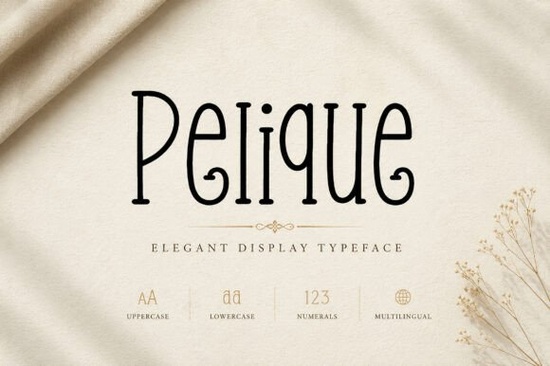
If you're looking for a font that can add a touch of elegance and sophistication to your design projects, Pelique Font is a great choice. This display font features playful curves and elegant proportions, making it ideal for luxury branding, editorial design, packaging, and more.
Why Choose Pelique Font?
Pelique is designed to bring sophistication, charm, and personality to your creative projects. Its tall, graceful letterforms and playful organic curves blend modern refinement with timeless editorial aesthetics. Whether you're working on a chic fashion brand, a feminine boutique identity, or an editorial-style layout, Pelique delivers a distinctive and polished look with effortless elegance.
Perfect for Various Design Projects
Pelique is versatile and can be used in a wide range of design applications:
- Luxury Branding
- Fashion Logos
- Beauty Packaging
- Perfume Labels
- Boutique Identity
- Editorial Headlines
- Magazine Covers
- Social Media Design
- Product Packaging
- Wedding Invitations
- Quote Designs
- Posters & Flyers
Font Features
Pelique comes with several useful features that make it easy to use and integrate into your designs:
- Uppercase & Lowercase - Perfect for creating varied and dynamic text layouts.
- Numbers & Punctuation - Essential for adding details and completing your designs.
- Stylistic Alternates - Offer additional options to customize and enhance the look of your text.
- Ligatures - Help to create smooth and natural-looking connections between letters.
In contrast, Pelique stands out with its elegant and sophisticated design, making it a top choice for premium and luxury branding.
Where Can You Use Pelique Font?
Pelique is incredibly versatile and can be used in various design contexts. Here are some specific examples:
- Luxury Branding - Use Pelique to create high-end logos and branding materials that exude elegance and class.
- Fashion Logos - Perfect for fashion brands that want to convey a sense of style and sophistication.
- Beauty Packaging - Add a touch of luxury to beauty product packaging with Pelique's elegant lettering.
- Perfume Labels - The font's refined look makes it ideal for perfume labels, adding a premium feel.
- Boutique Identity - Use Pelique to create a cohesive and stylish identity for boutique stores and small businesses.
- Editorial Headlines - Make your magazine headlines stand out with Pelique's graceful and eye-catching letterforms.
- Magazine Covers - Add a touch of elegance to your magazine covers with this beautiful font.
- Social Media Design - Enhance your social media posts and templates with Pelique's sophisticated and memorable style.
- Product Packaging - Elevate your product packaging with Pelique's elegant and refined typography.
- Wedding Invitations - Create stunning and memorable wedding invitations with Pelique's artistic and expressive design.
- Quote Designs - Use Pelique to create visually appealing and elegant quote designs for social media and print.
- Posters & Flyers - Add a touch of sophistication to your posters and flyers with Pelique's graceful and stylish lettering.
Tips for Using Pelique Font Effectively
To get the most out of Pelique, here are some practical tips:
- Experiment with Stylistic Alternates - Try different stylistic alternates to find the best fit for your design.
- Use Ligatures for Smooth Text - Enable ligatures to create smooth and natural-looking connections between letters.
- Combine with Clean Sans Serifs - Pair Pelique with a clean sans serif font for a balanced and professional look.
- Test on Different Backgrounds - Ensure readability by testing Pelique on various backgrounds, including light and dark colors.
- Keep It Simple - Let Pelique's elegance shine by keeping your design simple and not overcrowded.
With Pelique, you can create designs that are both elegant and memorable, perfect for any project that requires a touch of sophistication.